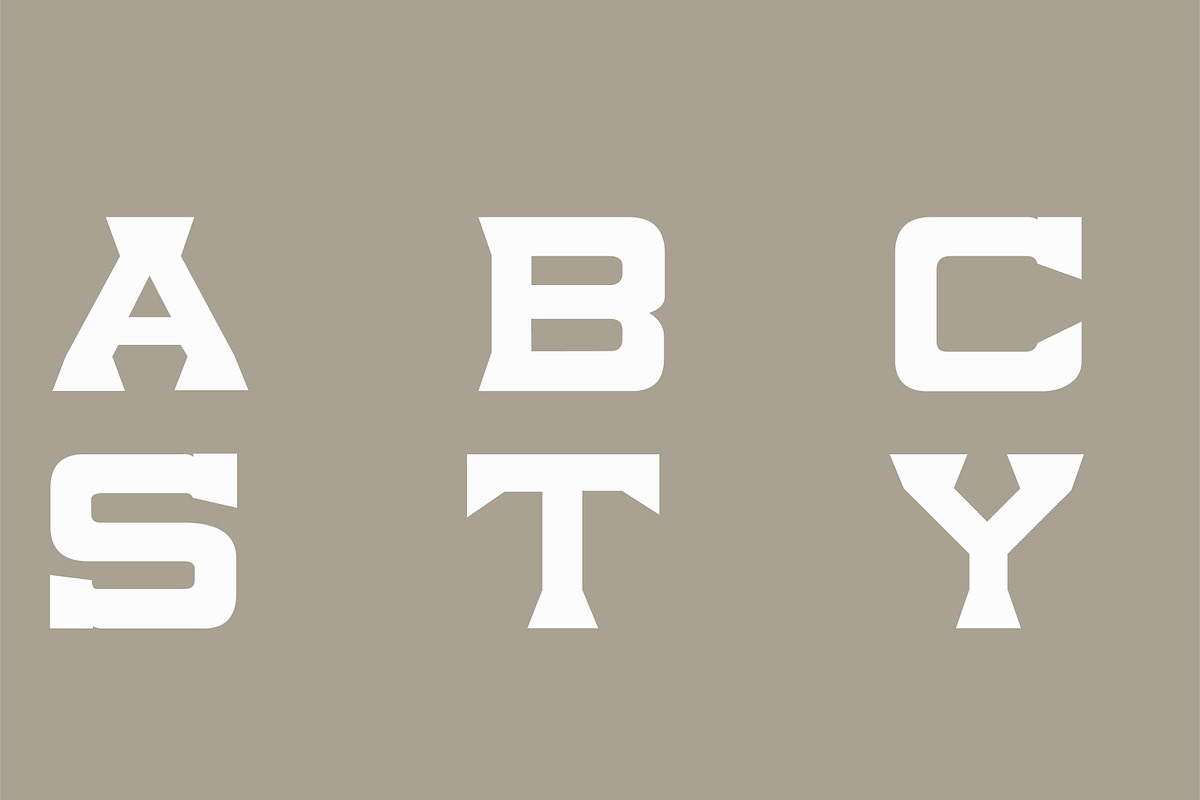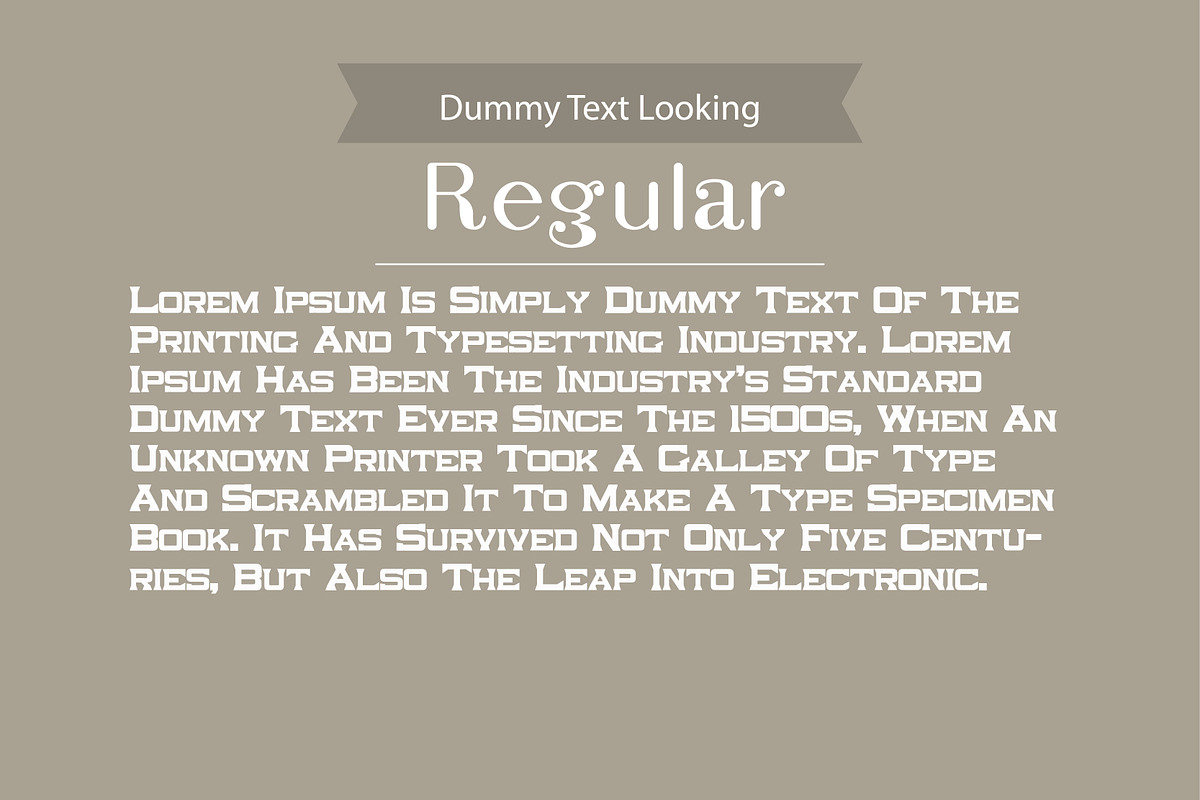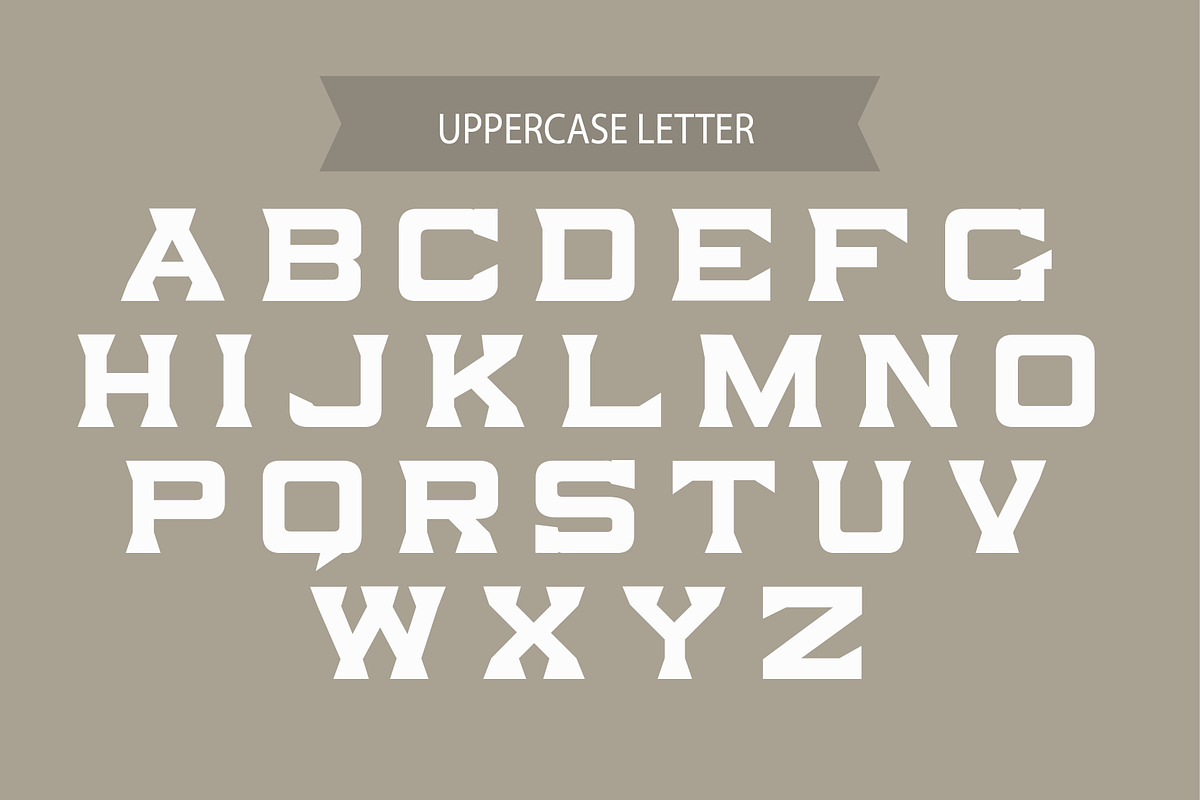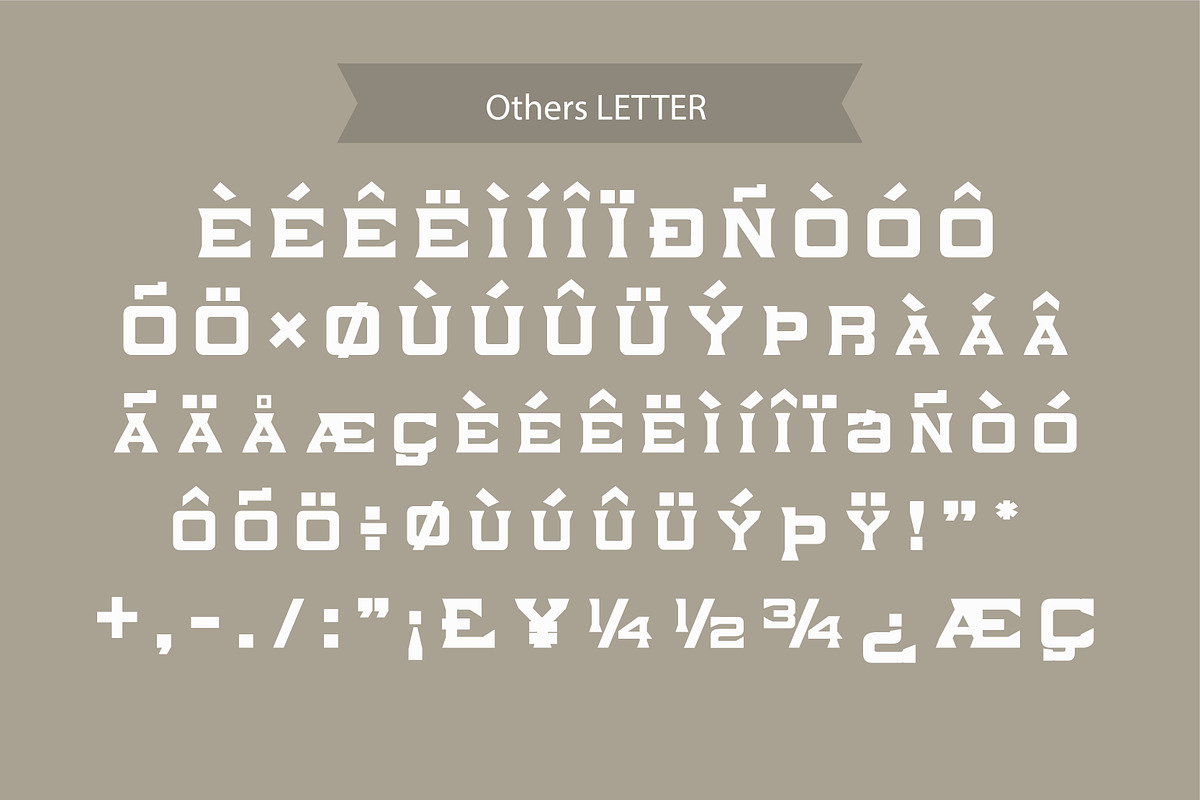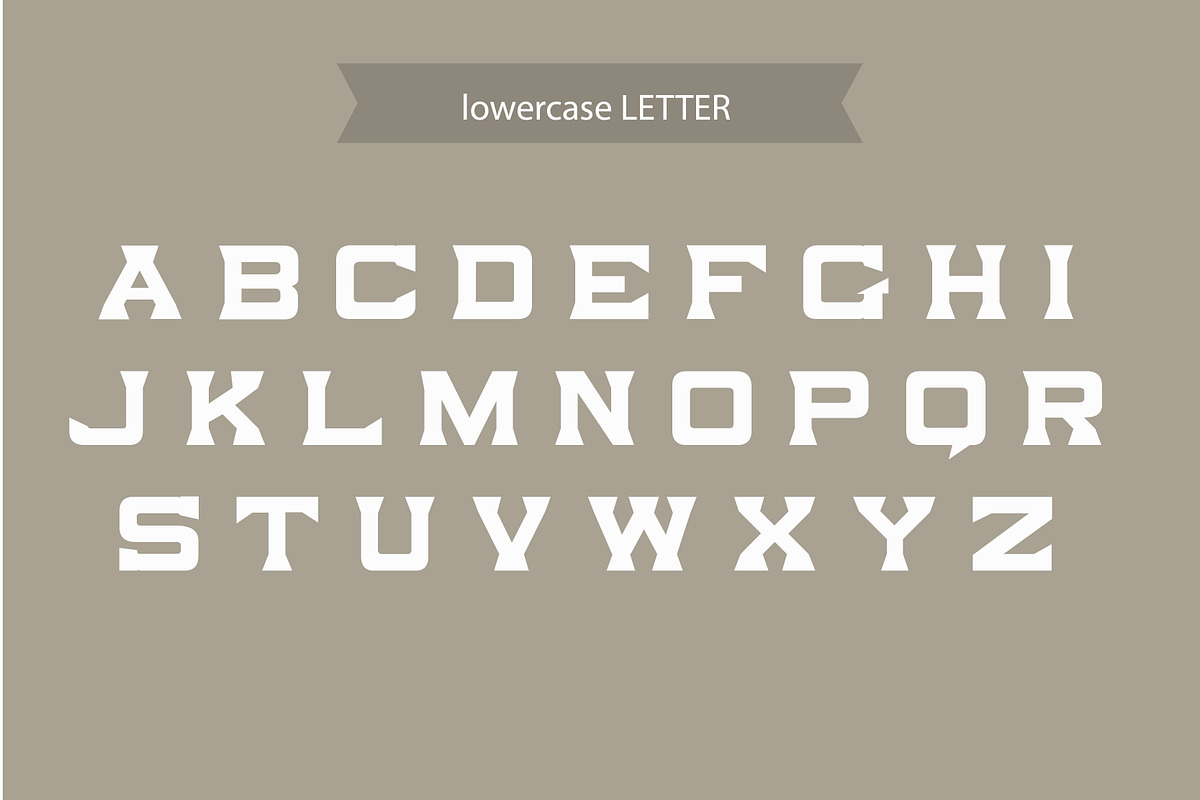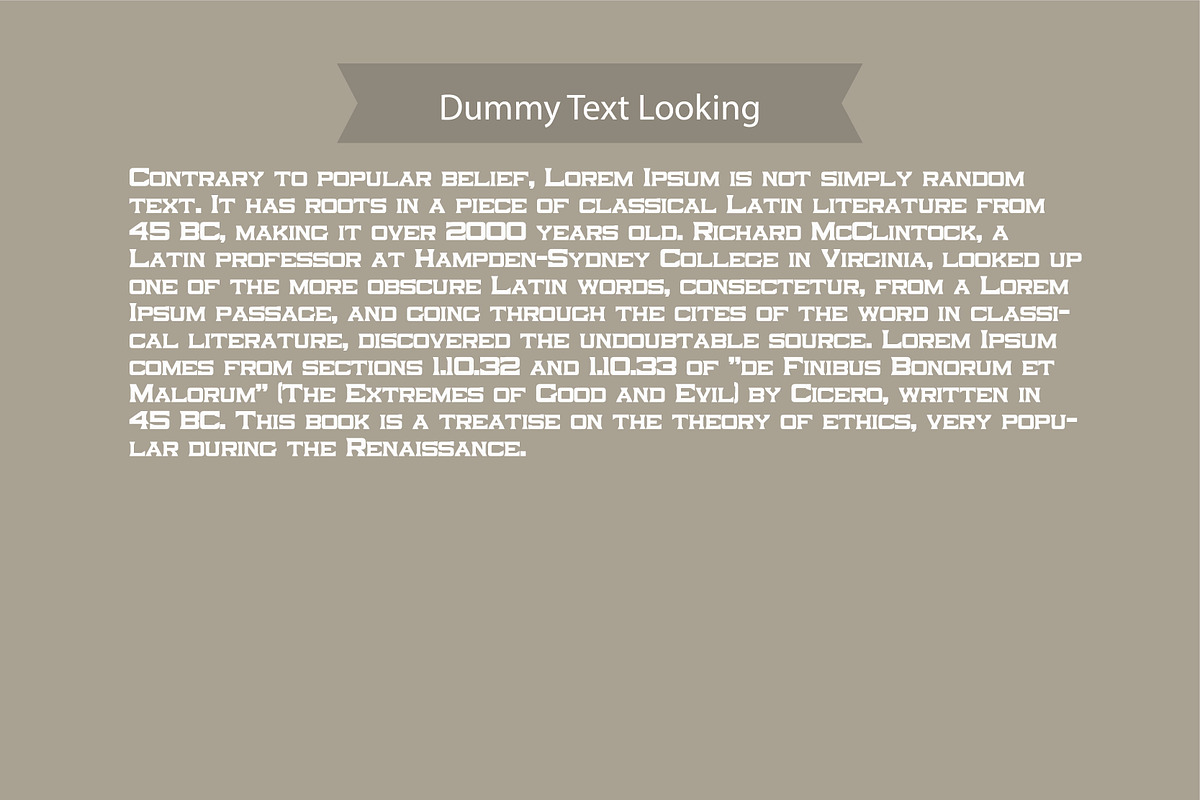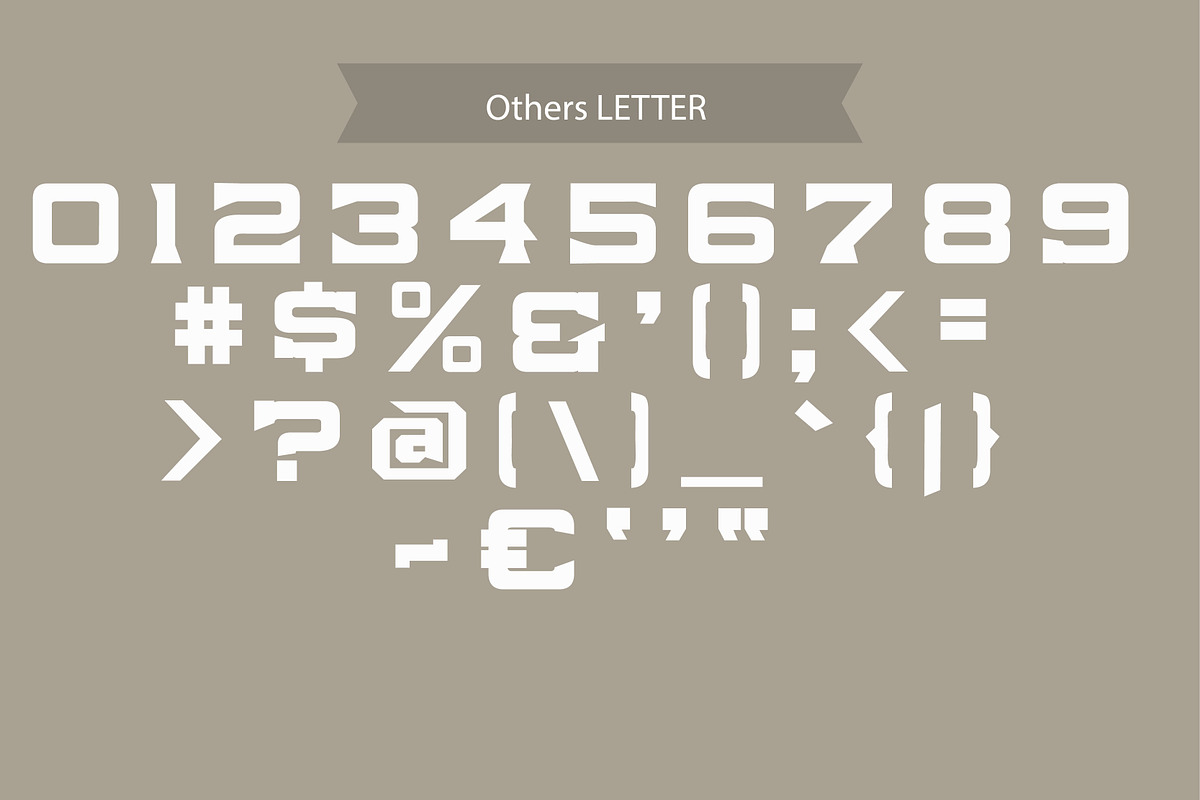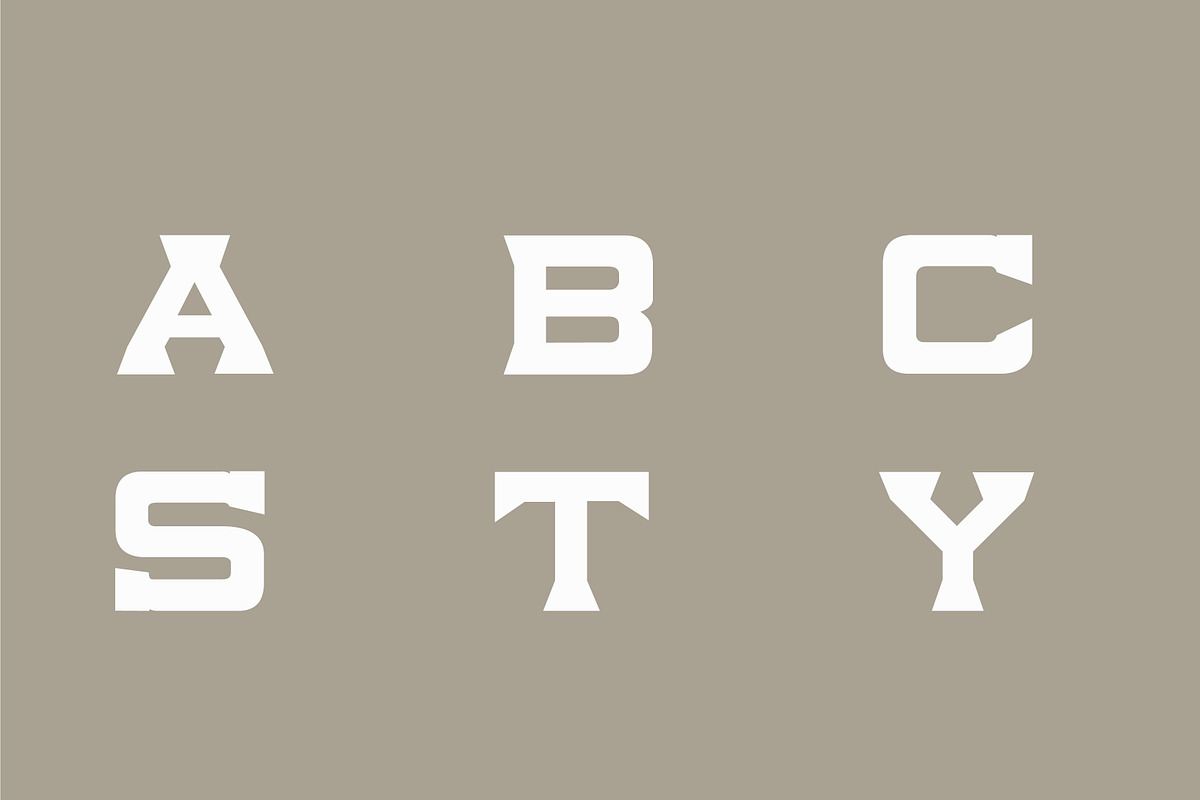
Lorendol
Lorendol is a stylish futuristic Bold Font. Available in Bold version with all special characters.
It’s useful for any Design project. Good for Logos & Headlines, Company name, Poster ,Tag design, Newspaper & Magazine Ad Design, Billboard, Banner etc.